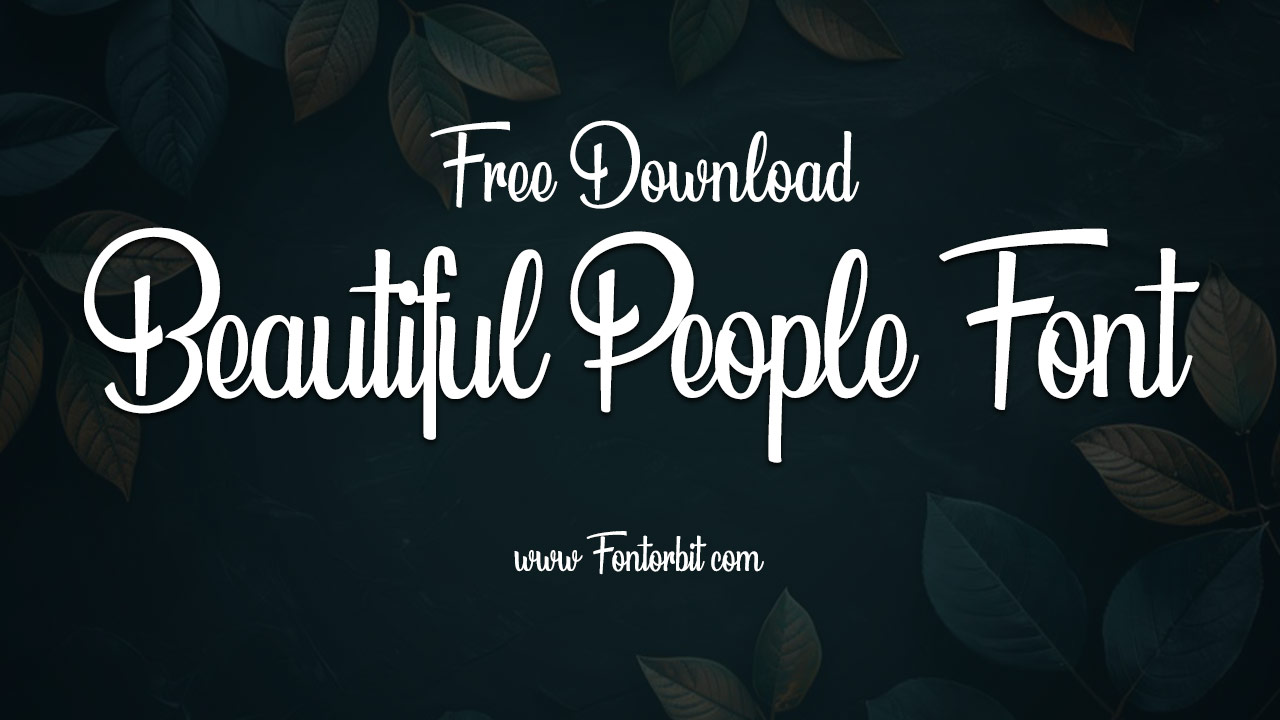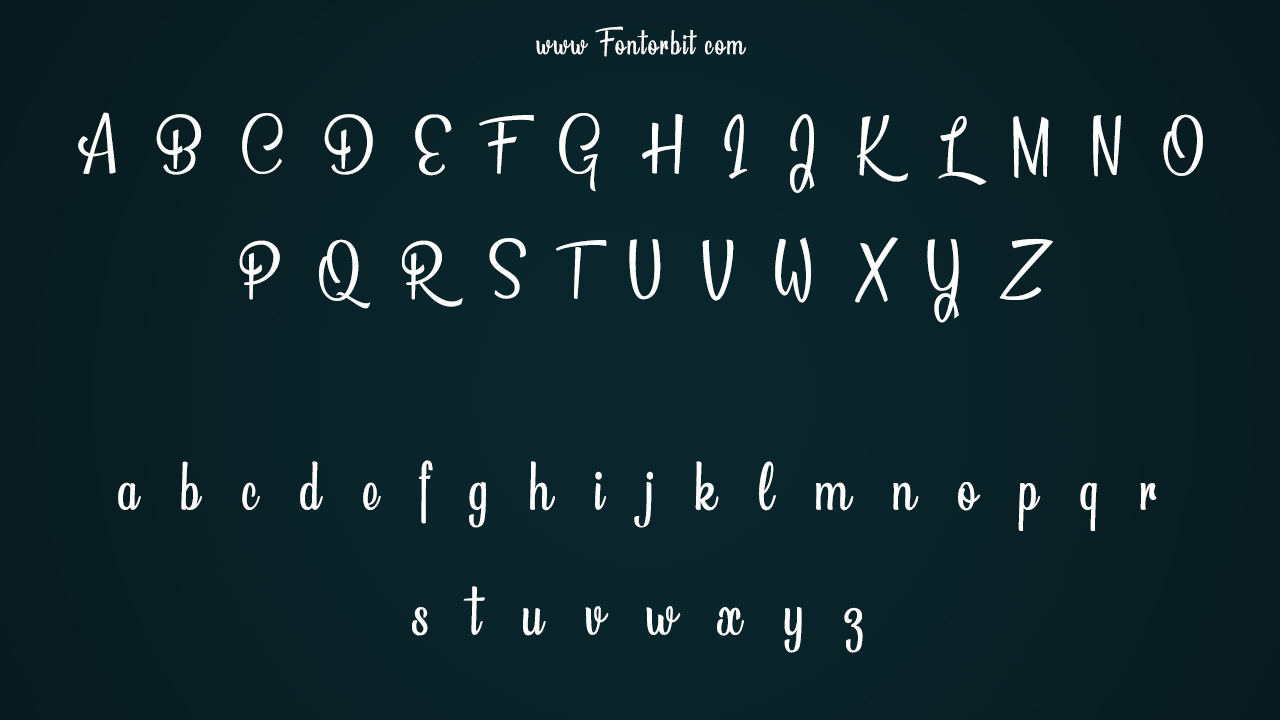
Beautiful People is a smooth, contemporary script font designed by Billy Argel. Released as a free personal use font, it brings an elegant, flowing handwritten style perfect for a wide range of design projects.
Its balanced, clean look offers a combination of beauty and sophistication. The font has become popular for adding a personalized, artistic flair to projects, and it is available in TTF and OTF formats.
This script font includes smooth, flowing strokes with a consistent weight, which enhances its readability while preserving an artistic and handmade touch. Available in both OTF and TTF formats, Beautiful People ensures compatibility across multiple platforms and design software, offering flexibility for various creative uses.
Beautiful People has been widely adopted for projects requiring an elegant and personal touch. Its delicate and smooth lines make it perfect for upscale invitations, personalized branding, and high-end fashion advertisements. It’s often used in logos, wedding designs, and other artistic projects where a sense of beauty and craftsmanship is required.
These fonts maintain a similar handwritten aesthetic, blending style with elegance for use in creative and formal design projects.
Beautiful People is an ideal choice for designers looking to incorporate a touch of elegance and artistry into their work. Its versatility makes it suitable for everything from branding to social media graphics.
Pair Beautiful People with modern sans-serifs like Montserrat or Raleway for a balanced, clean aesthetic. Font-pairing tools such as FontPair or Google Fonts can also help in finding the perfect match for your design projects.
1.What Font Is Beautiful People?
Beautiful People is a script font designed by Billy Argel, known for its clean, flowing handwritten style.
4.What Type Of Font Is Beautiful People?
Beautiful People is a script typeface, designed to resemble elegant, handwritten calligraphy with smooth, consistent strokes.